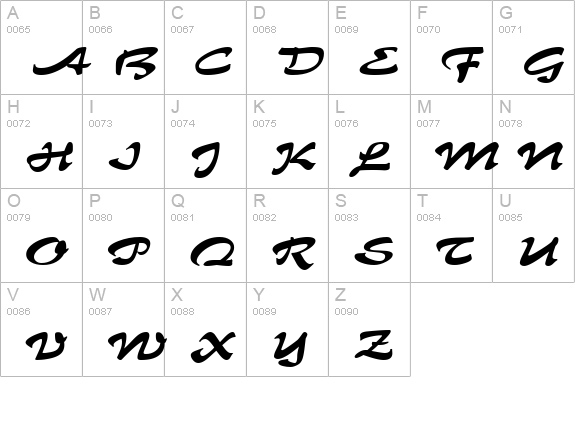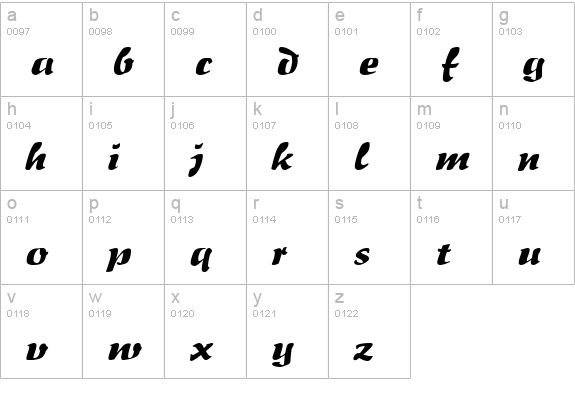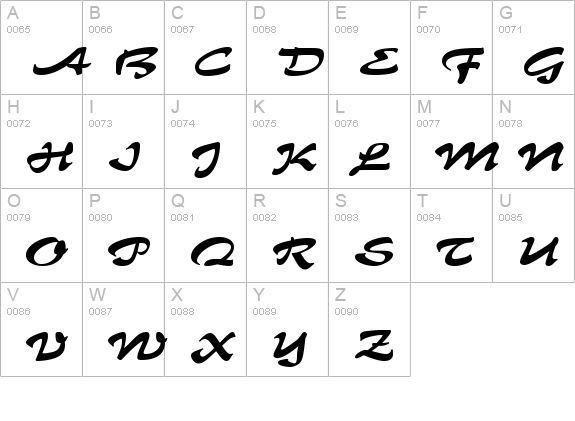
BrushFlairExpanded Regular Font Details
BrushFlairExpanded Regular is the standard, neutral variant in the BrushFlairExpanded typeface family \xE2\x80\x94 well suited to general body text, paragraphs, and standard typographic work.
BrushFlairExpanded Regular is a stylish and versatile brush font that exudes creativity and personality. With its bold strokes and modern yet playful design, this font is perfect for a wide range of projects, from branding to social media graphics. The free-flowing nature of BrushFlairExpanded Regular adds a touch of spontaneity and energy to any design, making it stand out from the crowd. Best of all, BrushFlairExpanded Regular is freely available to download at FontsMarket.com. This means that you can access this unique font at no cost, allowing you to unleash your creativity without any limitations. Whether you're a designer looking to add a fresh twist to your projects or a content creator seeking a font that truly reflects your style, BrushFlairExpanded Regular is the perfect choice. Download it today and let your creativity flourish!